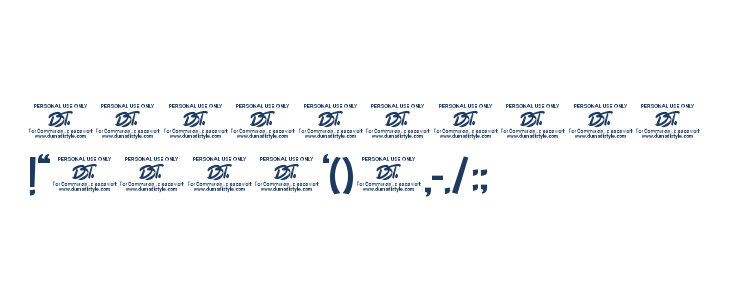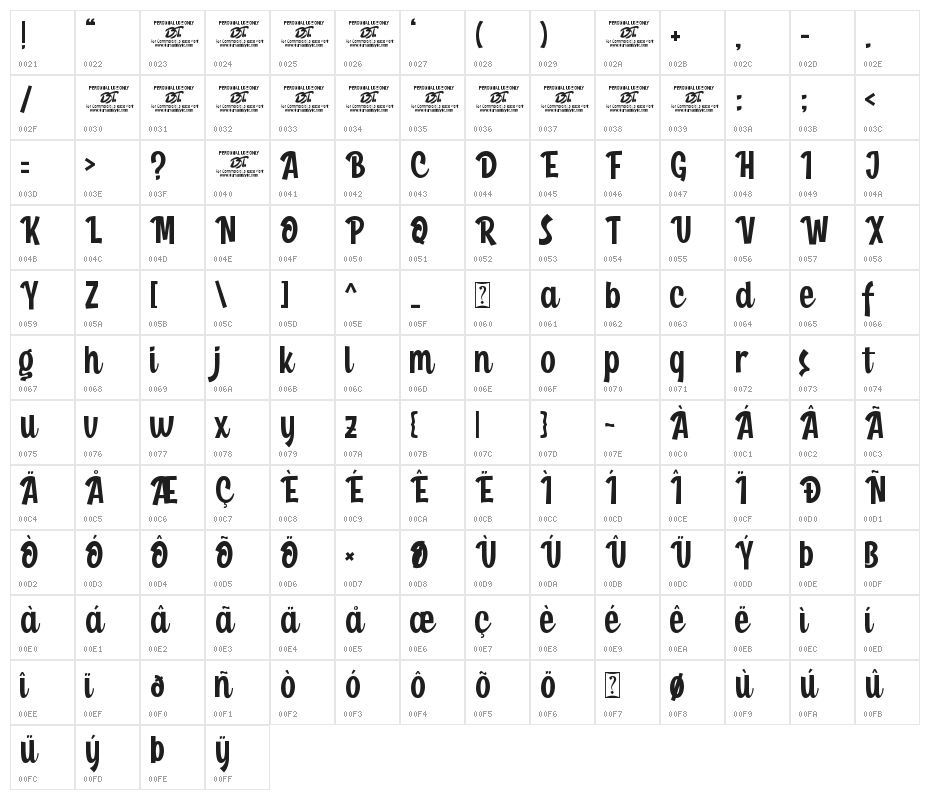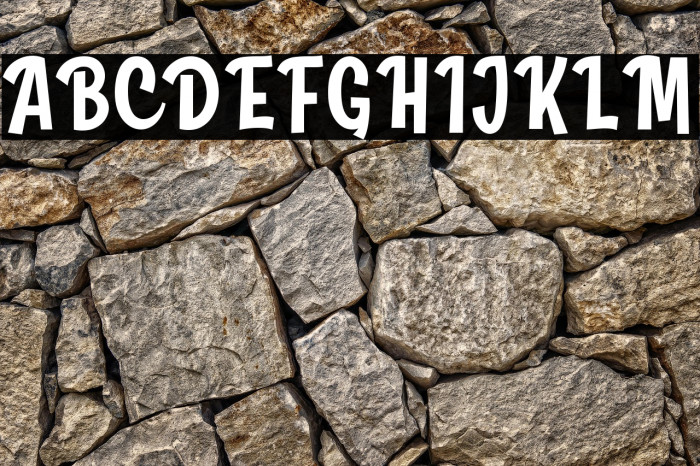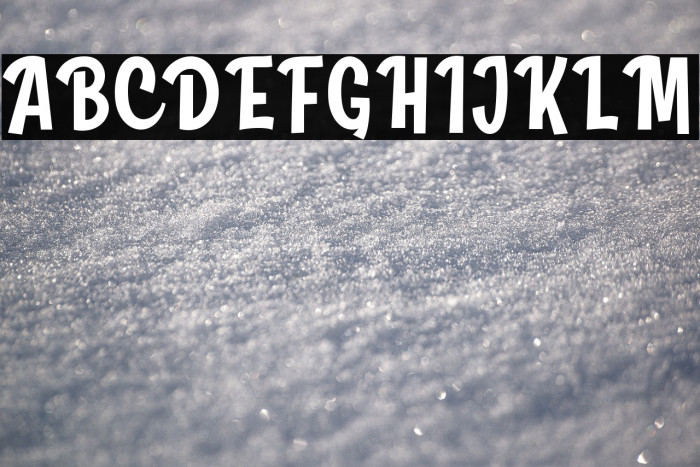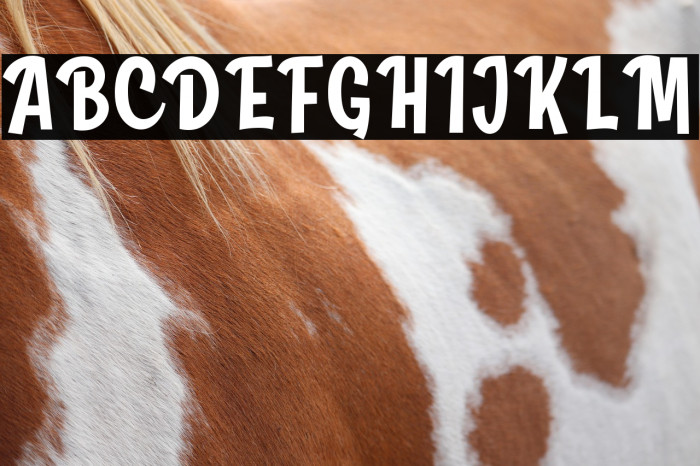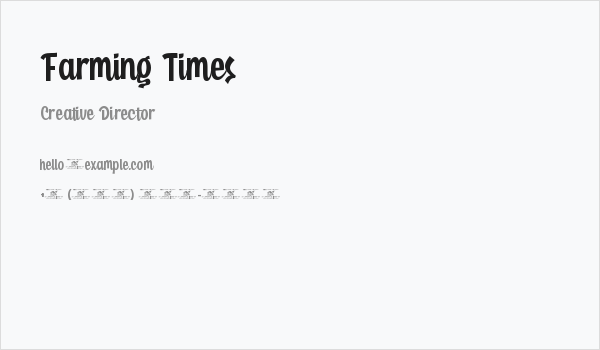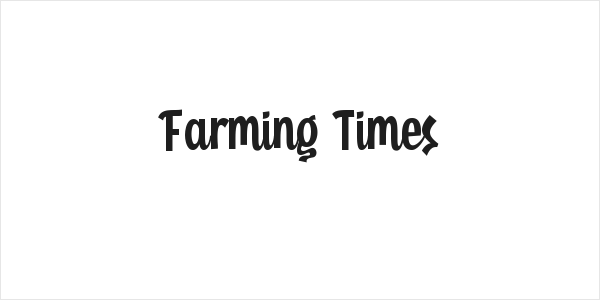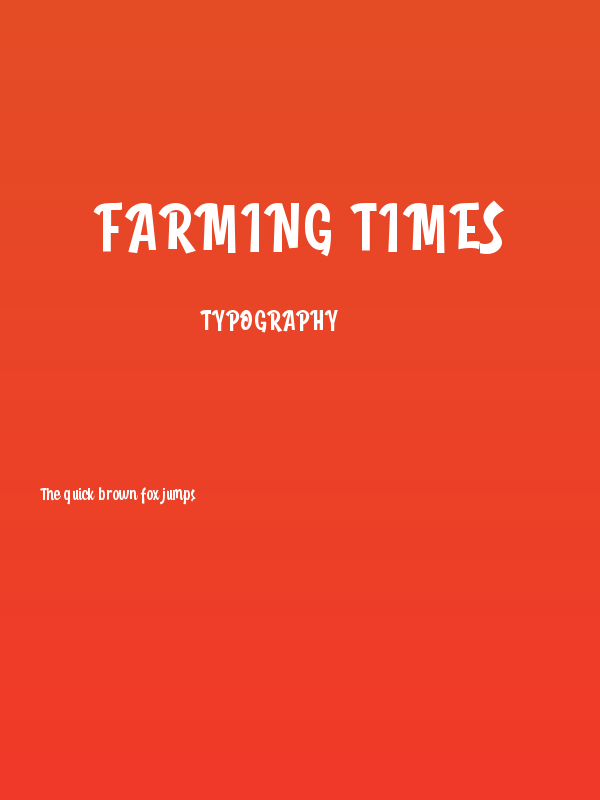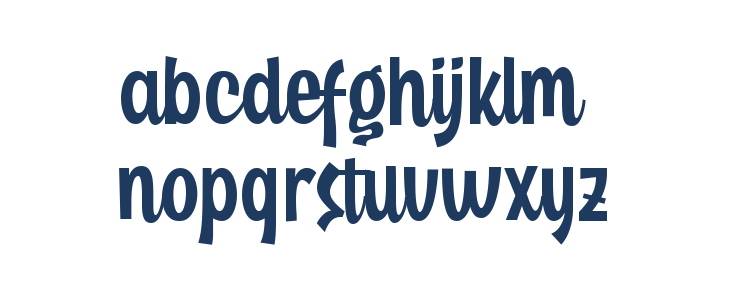
Farming Times Font
Farming Times Description
This font features a bold and playful style with a unique twist on traditional letterforms. The characters exhibit a slight slant, adding a dynamic and energetic feel. The uppercase letters are bold and commanding, while the lowercase letters maintain a consistent weight, offering a cohesive look. The font includes a full set of uppercase and lowercase letters, numbers, and a selection of special characters. Its distinct style makes it suitable for eye-catching designs and creative projects.
| Overall Style | Playful, Energetic |
| Proposed Projects | Ideal for branding, posters, headlines, and creative design projects that require a bold and playful touch. |